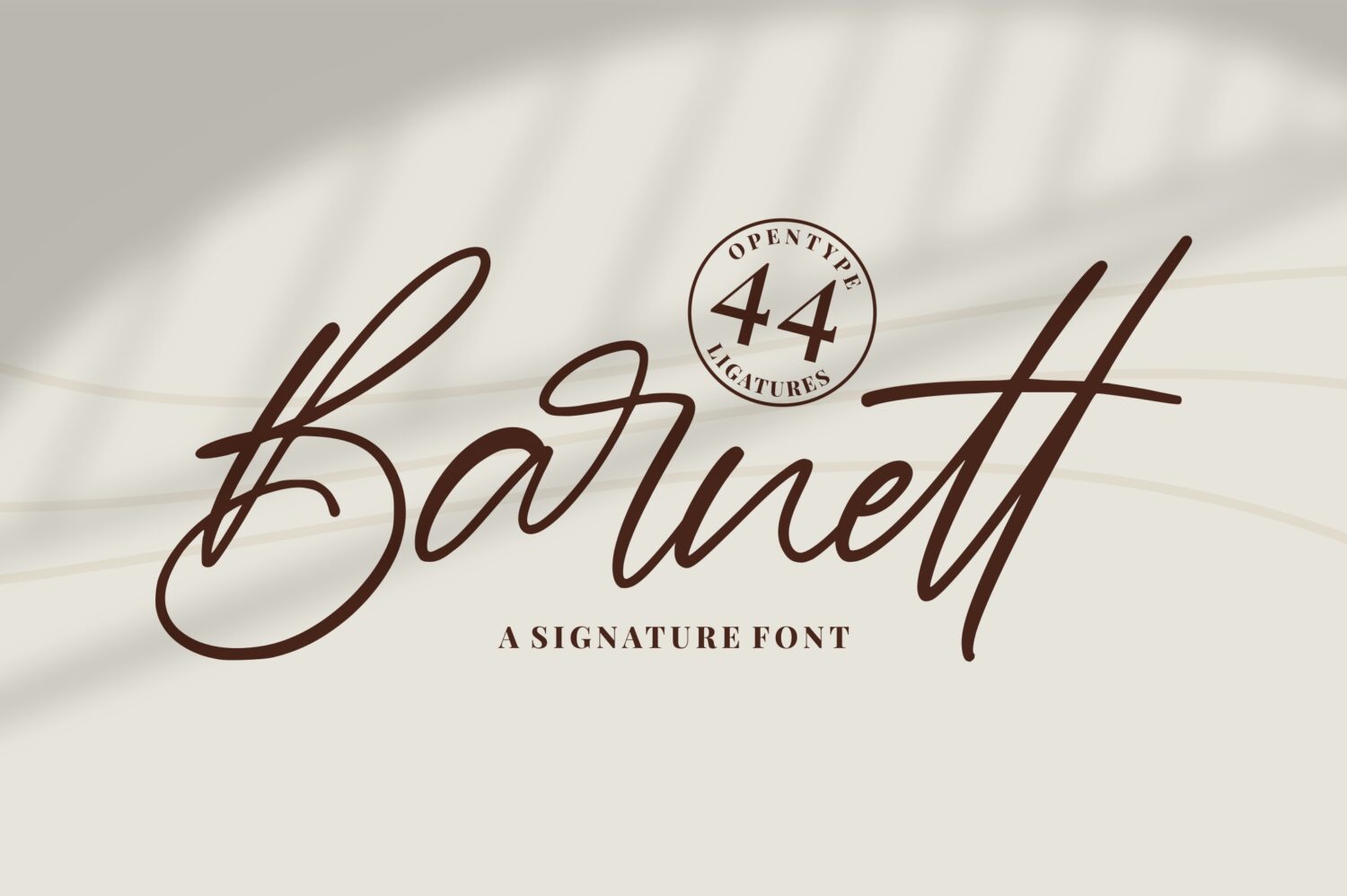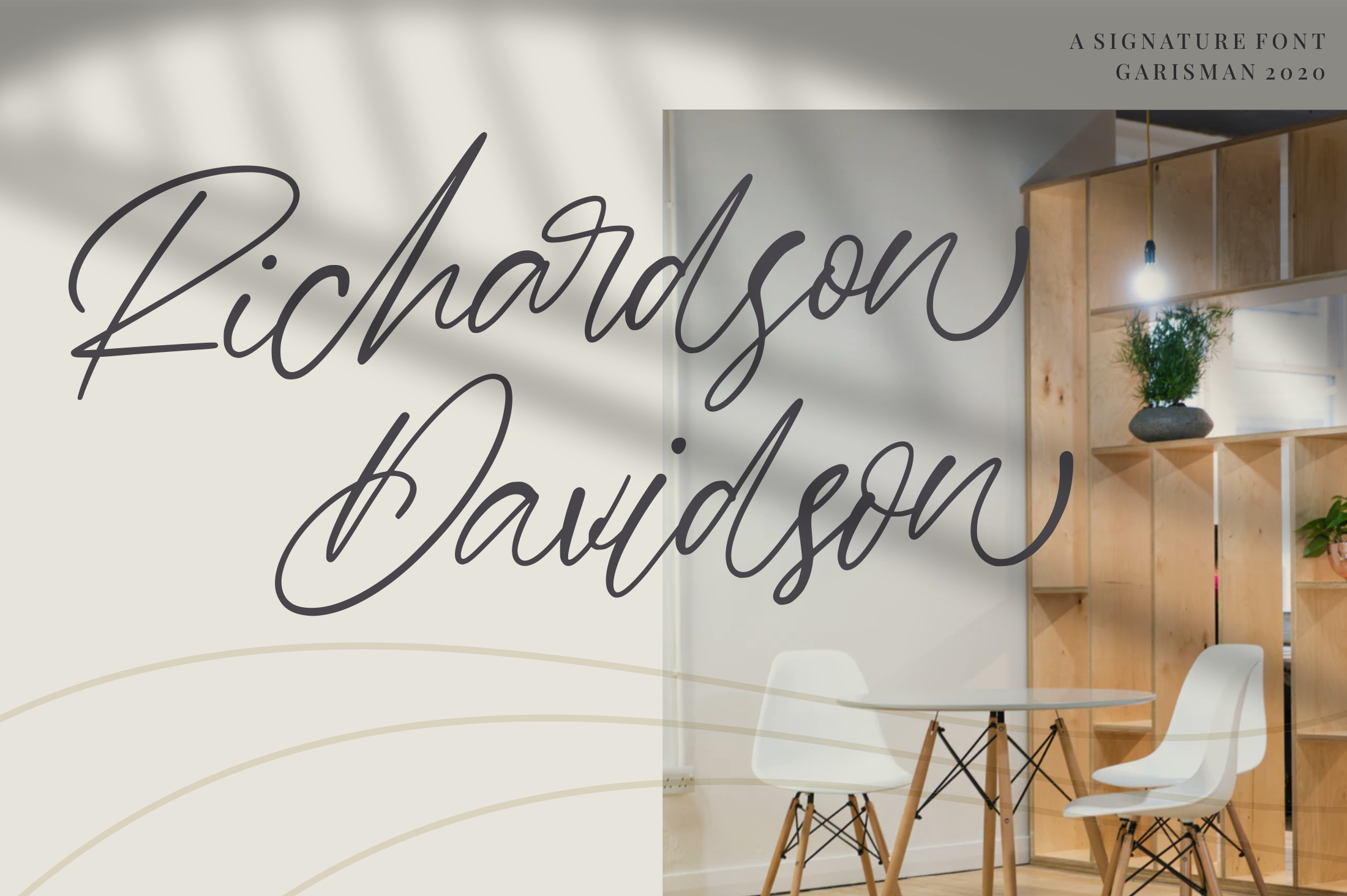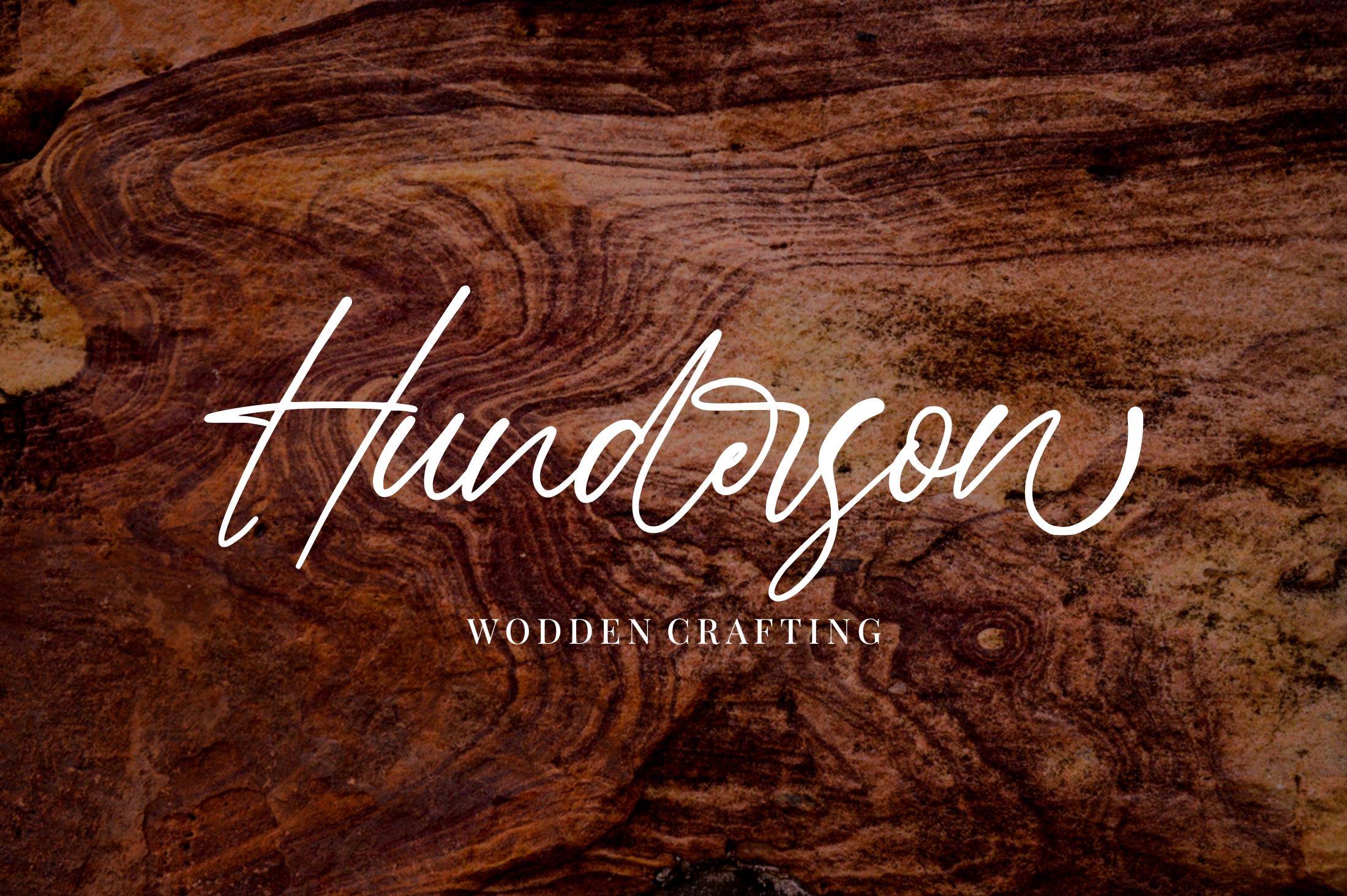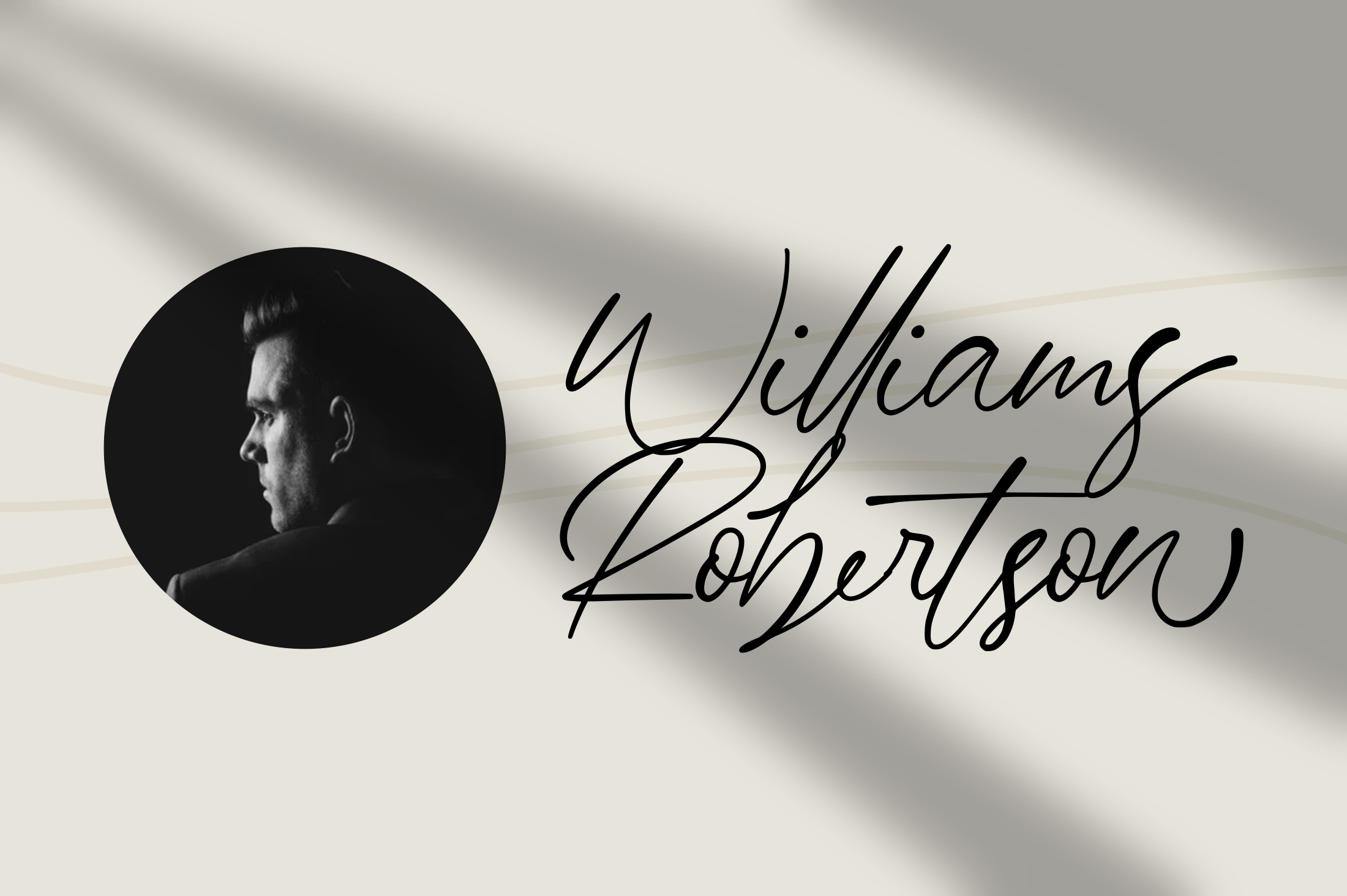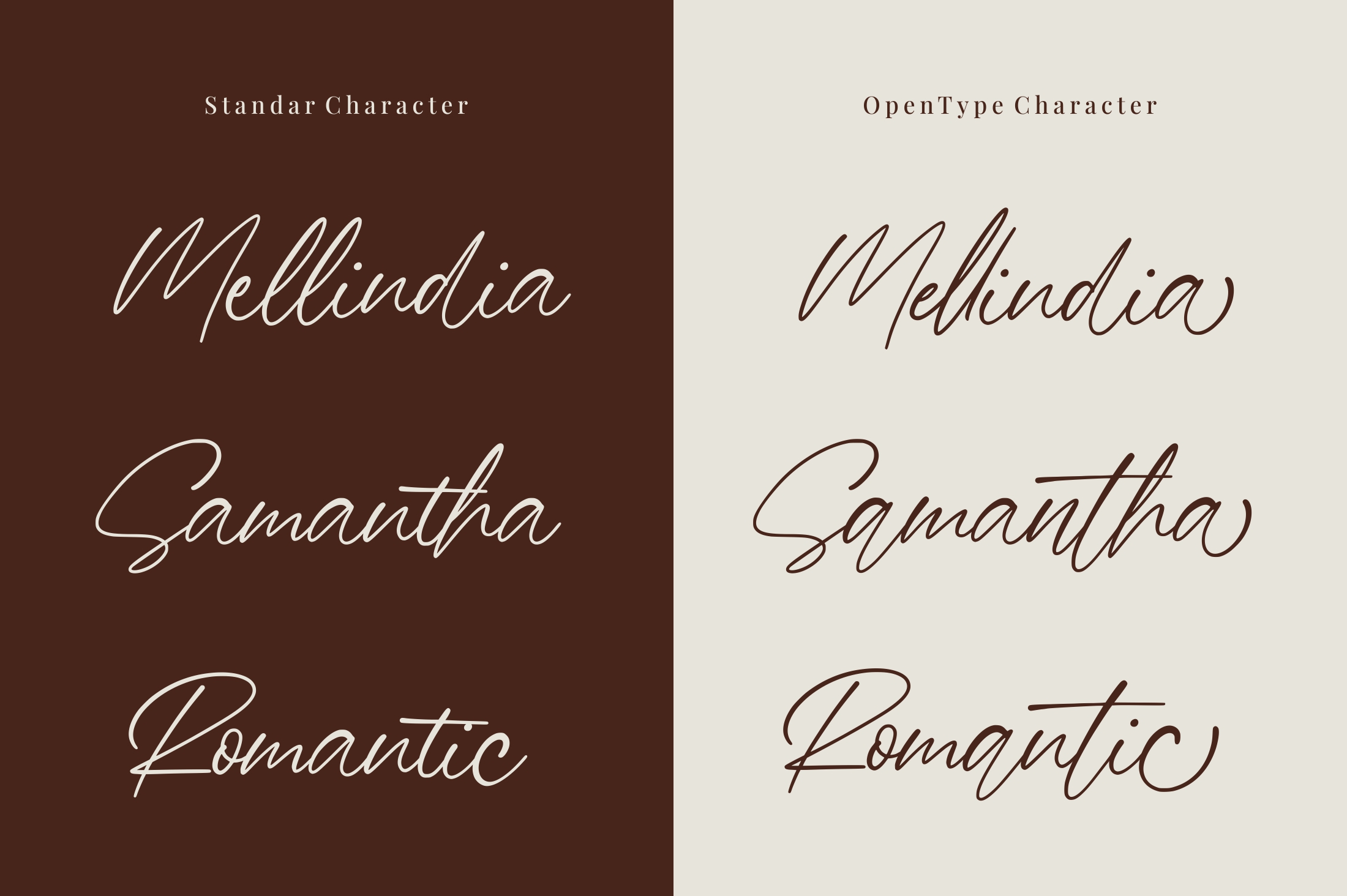
Barnett Free Font
Barnett Free Font is a signature handwritten font with magical pressure. I hope this font perfect for creating signature logos and watermarks for a photography studio or wedding invitation, best for initial or branding logo signature. Made fully with love and uniqueness!! Barnett coast includes a full set of beautiful and natural handwritten uppercase and lowercase letters, numerals, a large range of punctuation, and ligatures. This free typeface was designed by a talented Grisman Studio. If you like it don’t forget to check out the full version.